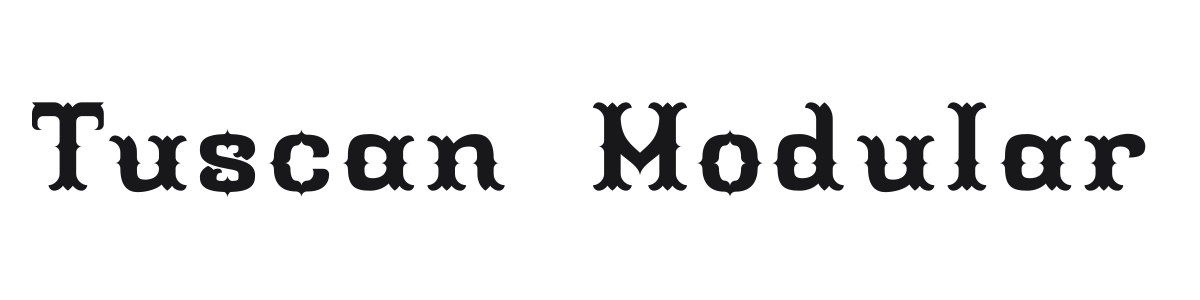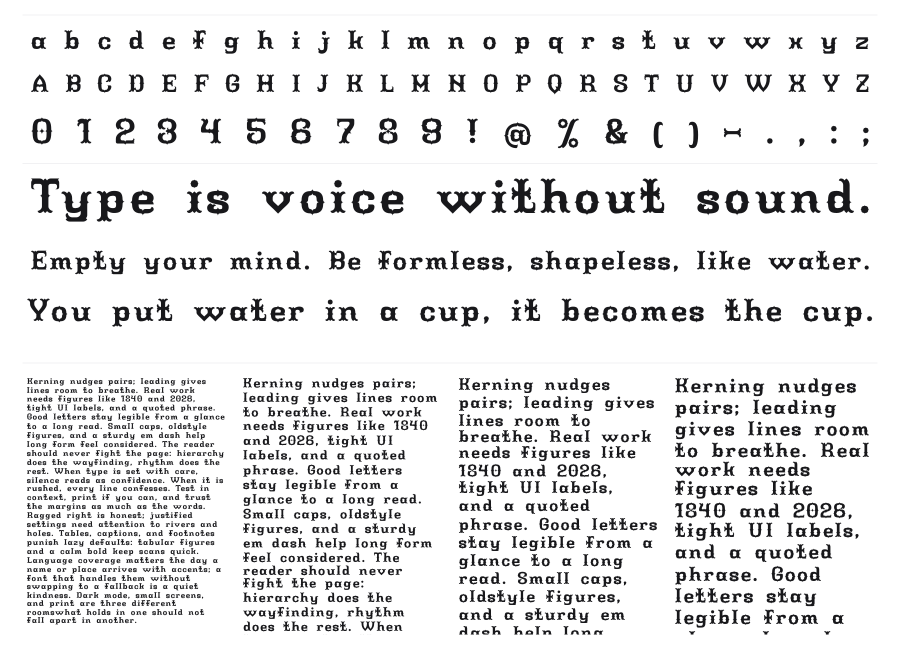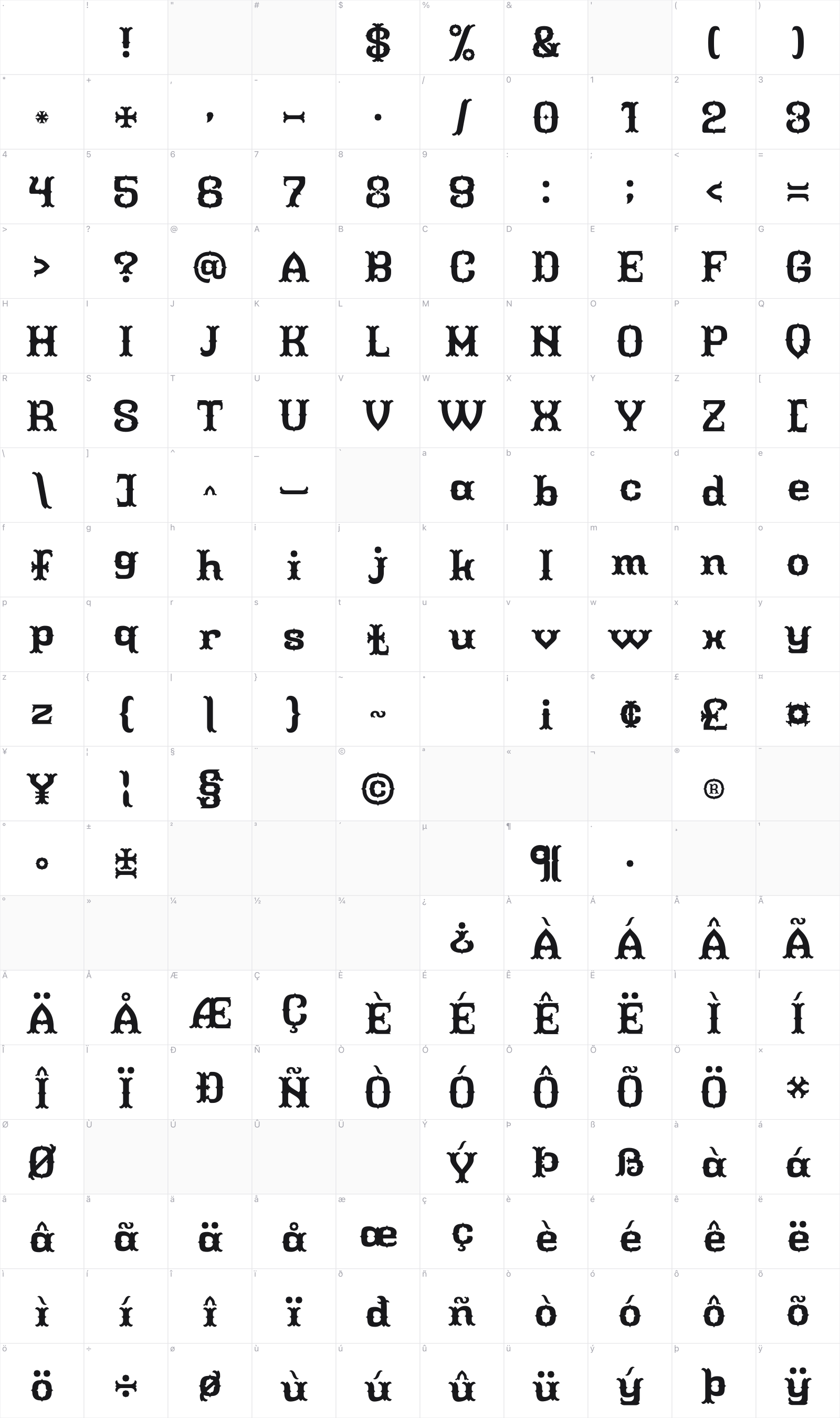
Tuscan Modular
Tuscan Modular is a bold Western display font built around the classic Tuscan slab-serif tradition of forked, spurred terminals. Thick stems and etched notch details give each character a carved, hand-hewn quality reminiscent of 19th-century American frontier signage. The heavy weight and ornate construction make it a strong choice for titles, packaging, and anything that needs a rugged vintage edge.